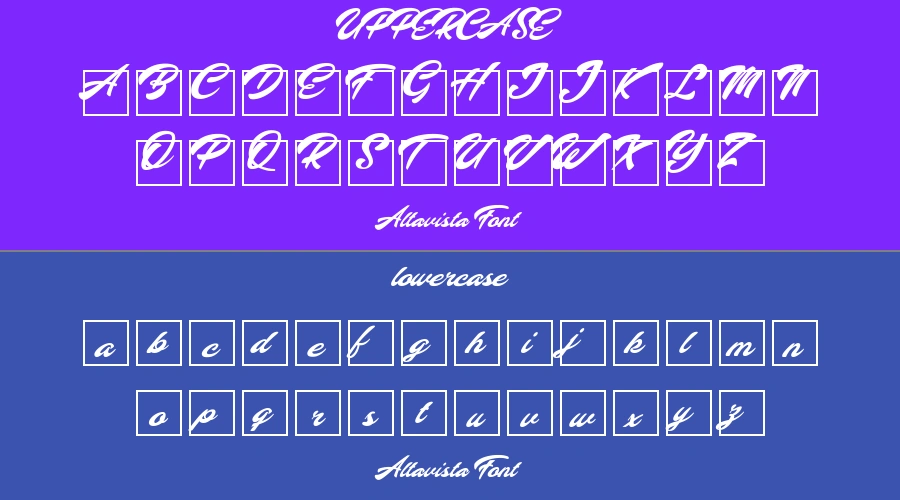
About Altavista Font
Designed with precision, Altavista Font merges harmonic curves with brand distinction in every character. This versatility makes it particularly effective for technical manuals, where flexibility and market credibility directly impact communication quality. Each letterform demonstrates meticulous craftsmanship.
Technical excellence shines through elements like script connections and discretionary ligatures, enhancing typographic versatility. In editorial spreads settings, Altavista Font proves its worth through superior special character access. The thoughtful execution of stroke modulation and lifestyle connection ensures professional results.